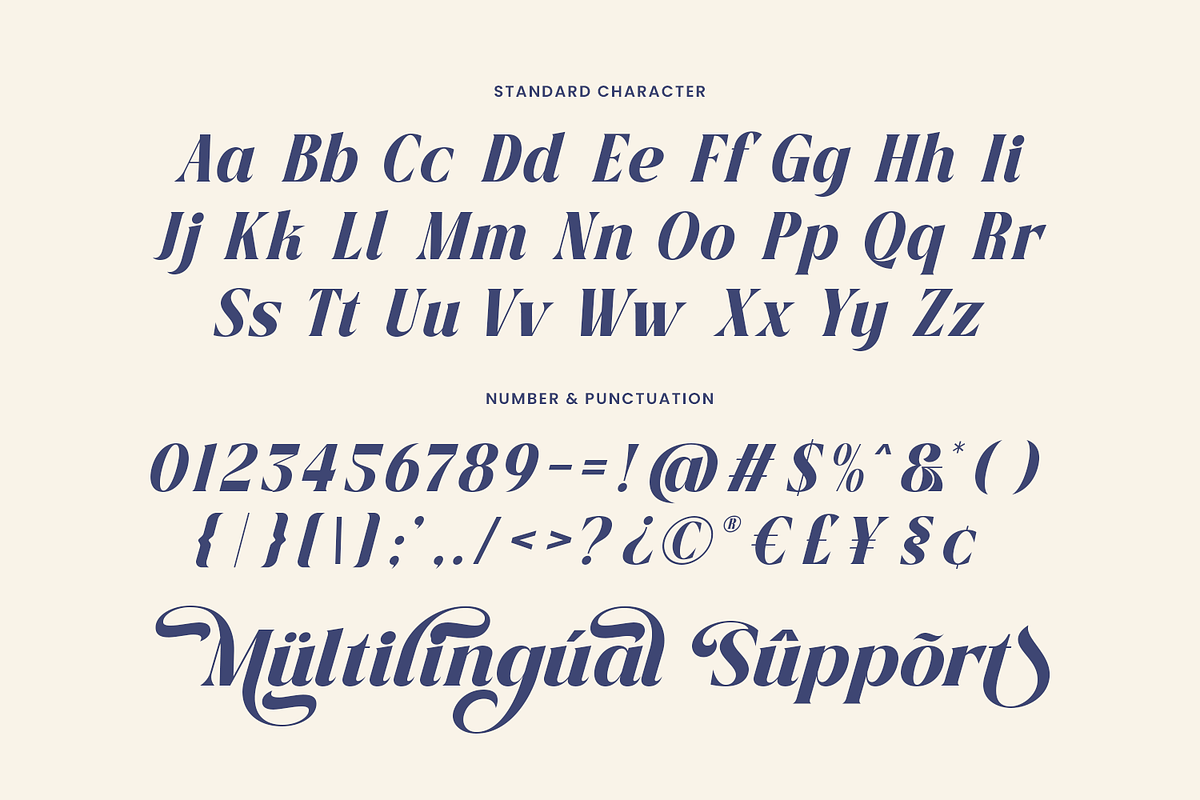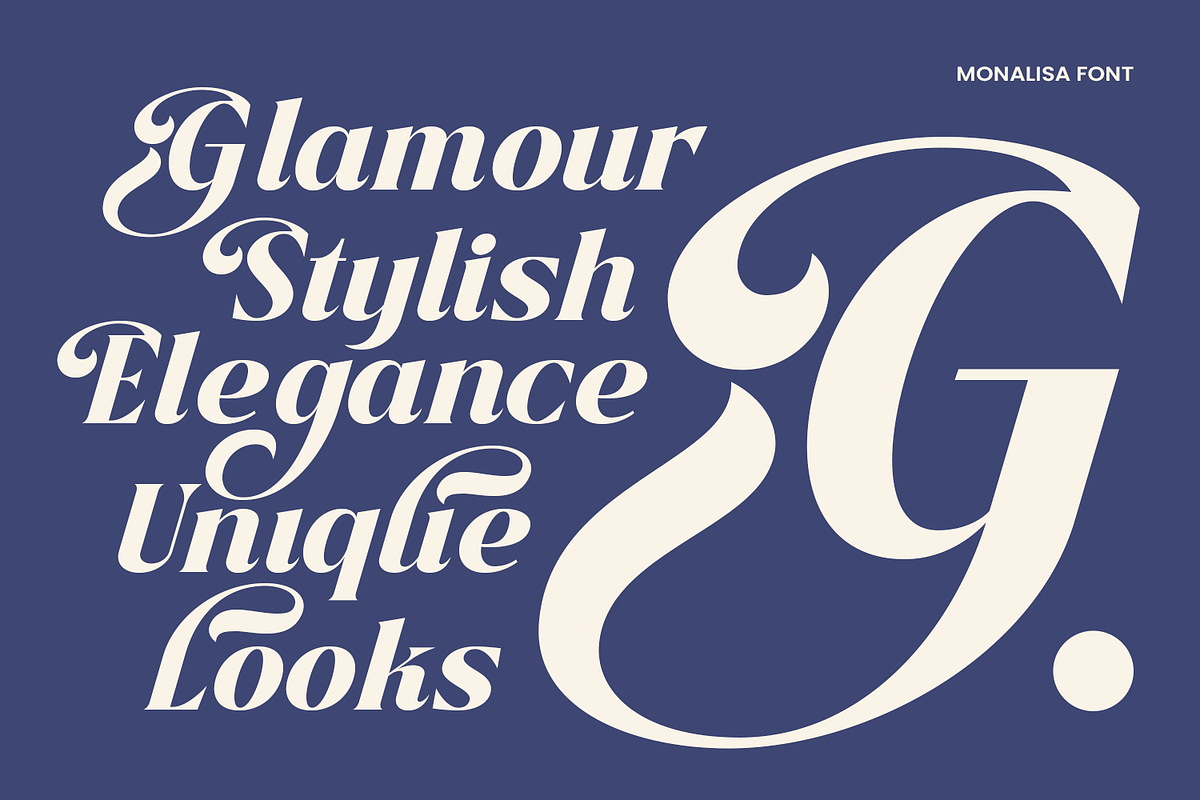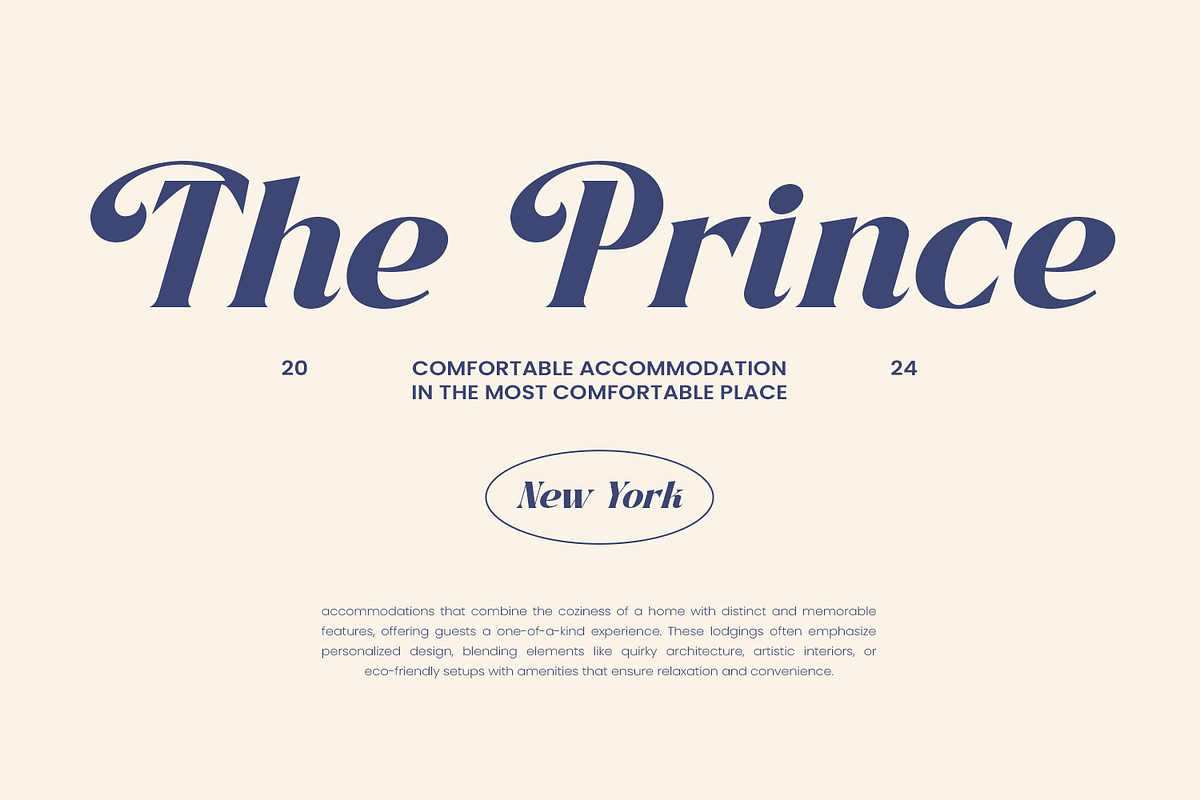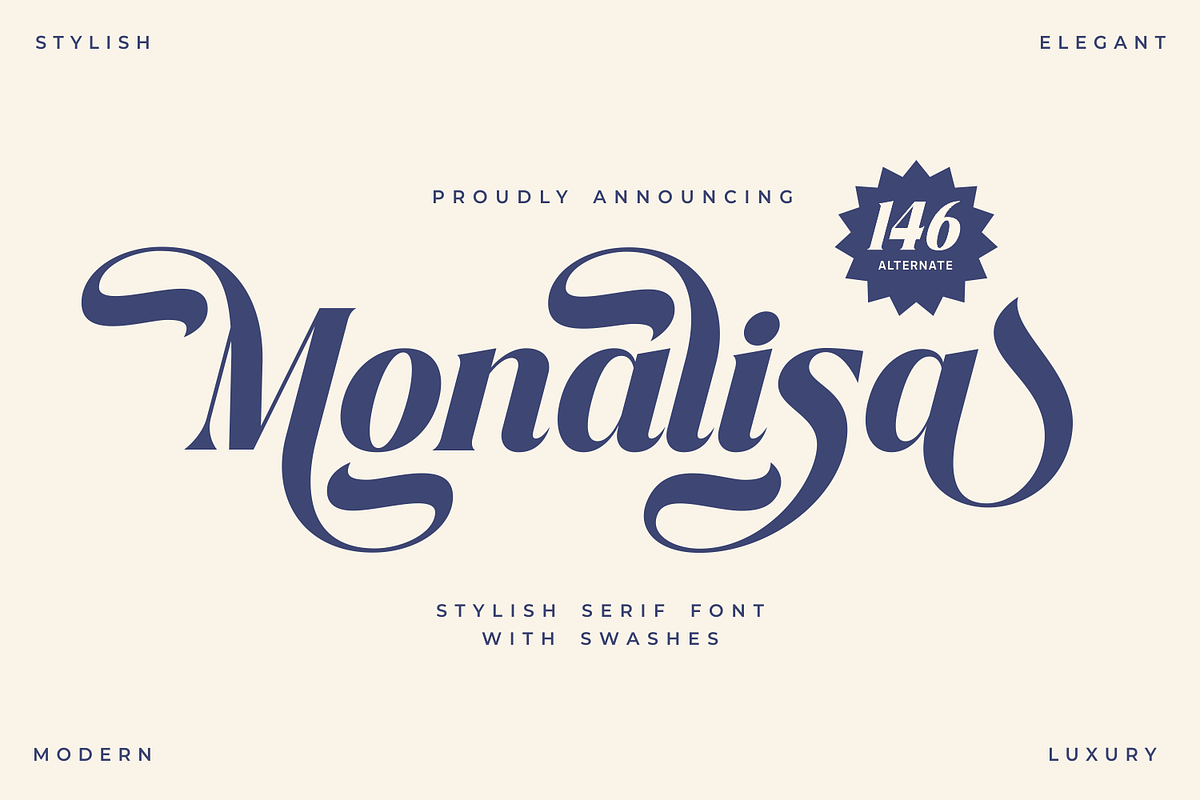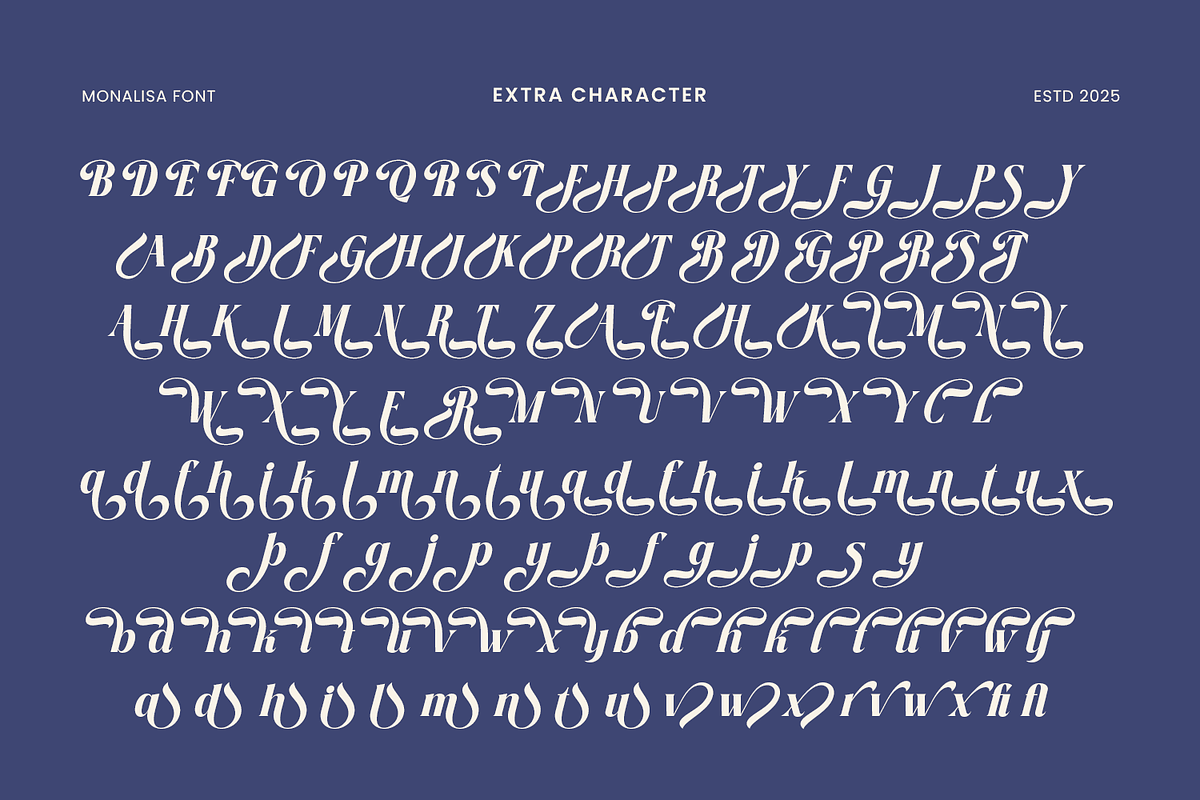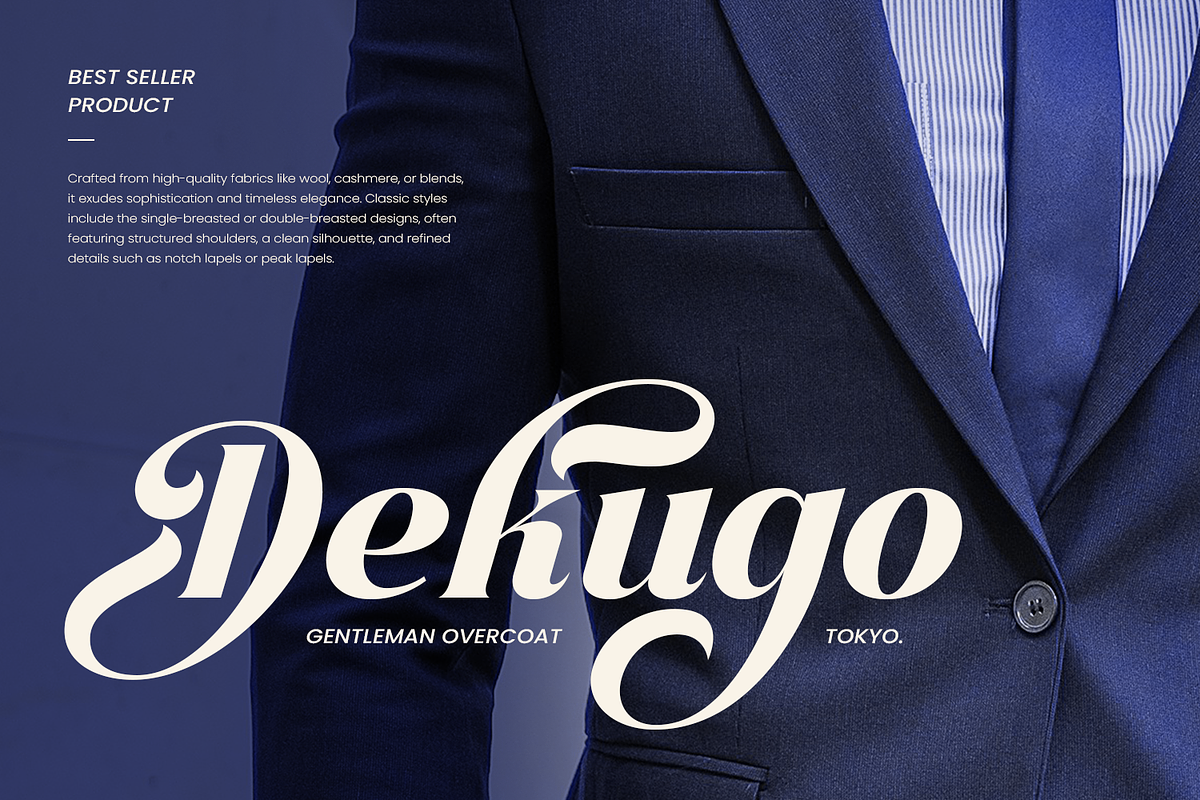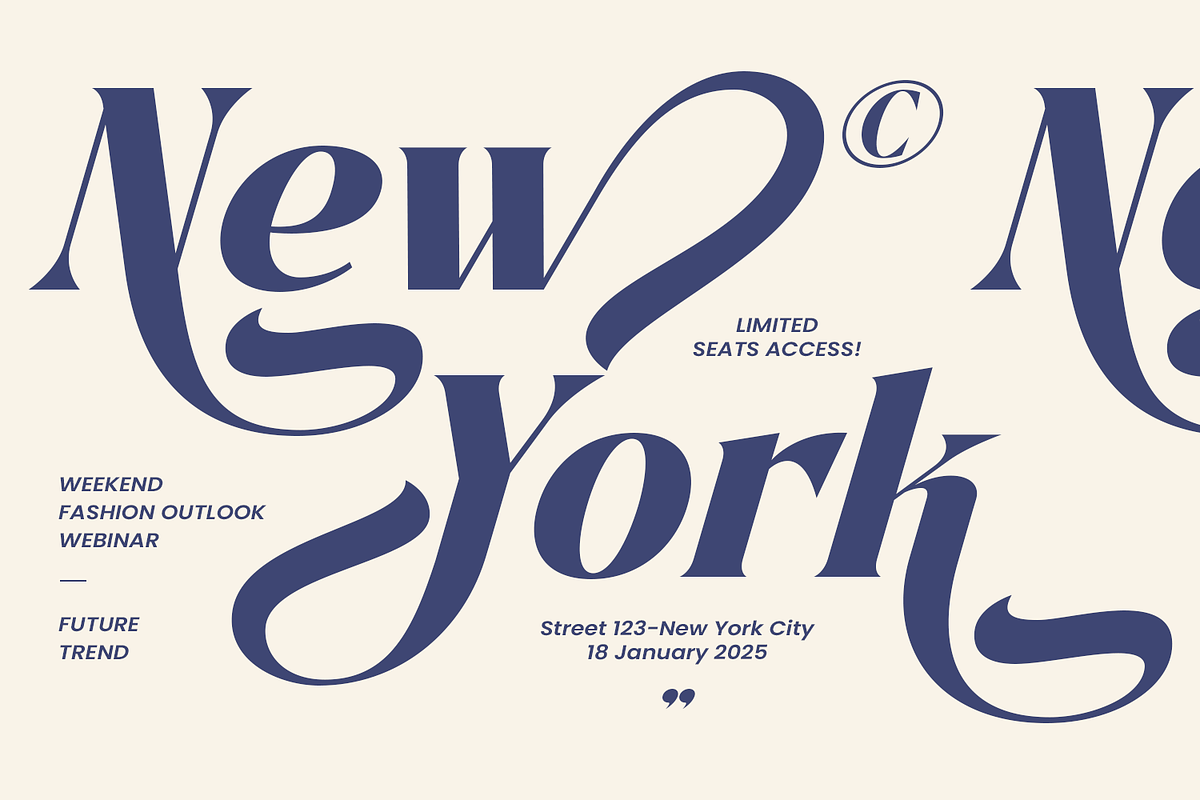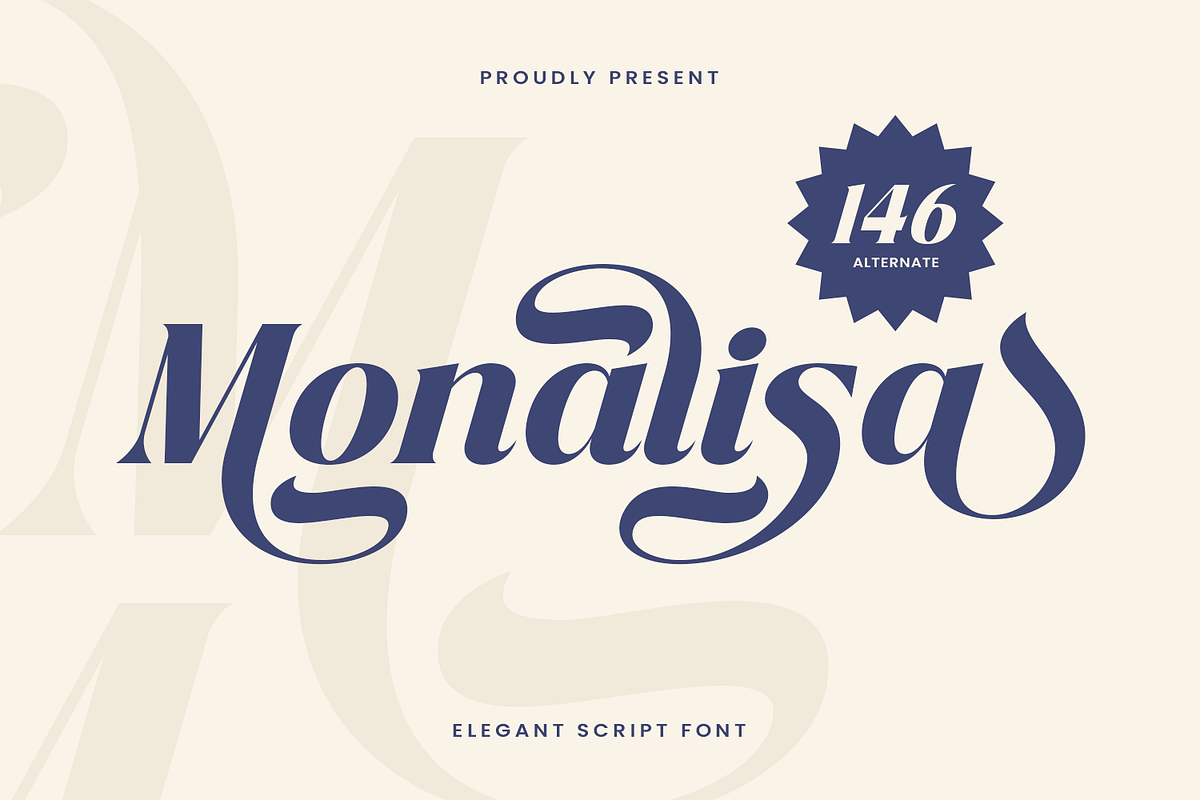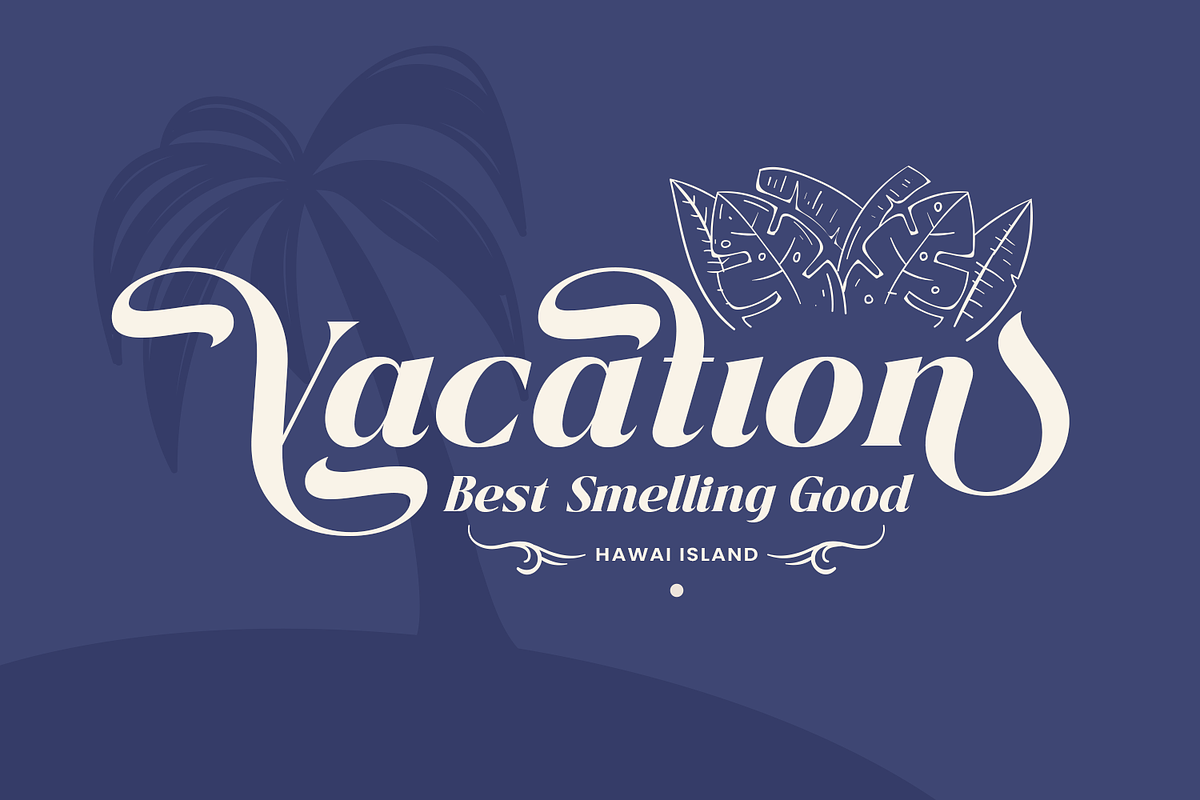
Monalisa - Serif Font with Butterfly
Monalisa - Serif Font with Butterfly Swash
Monalisa is an elegant serif font that exudes timeless sophistication and charm. The highlight of this font lies in its exquisite swashes that resemble the delicate wings of a butterfly, lending a whimsical and enchanting feel to every design. Its refined curves and intricate details make it a standout choice for anyone seeking a font that combines beauty and grace.
Designed to elevate creative projects, Monalisa is ideal for crafting stunning logos, inspiring quotes, and captivating blog posts. Perfect for branding projects and special occasions, this versatile font is a dream come true for wedding invitations, birthday cards, Easter decorations, and seasonal themes like summer, spring, autumn, and Thanksgiving. Whether you're working on Cricut designs, embroidery projects, or lettering art, Monalisa adapts beautifully to your creative needs.
What sets Monalisa apart are its beginning and ending swash tails on every character, providing unparalleled versatility and artistic flair. From SVG projects to personalized crafts, this font is a must-have for adding a magical touch to your work. Its butterfly-like swashes breathe life into designs, making them truly unforgettable.
- Standard & Multilingual glyphs.
Fonts include multilingual support for; Afrikans, Danish, Dutch, English, Estonian, Filipino, Finnish, French, Friulian, Galician, German, Gusii, Indonesian, Irish, Italian, Luxembourgish, Norwegian Bokmål, Norwegian Nynorsk, Nyankole, Oromo, Portuguese, Romansh, Rombo, Spanish, Swedish, Swiss-German, Uzbek (Latin) Scottish, Swiss, etc.